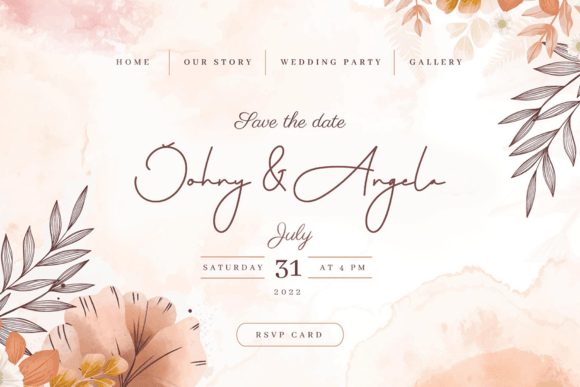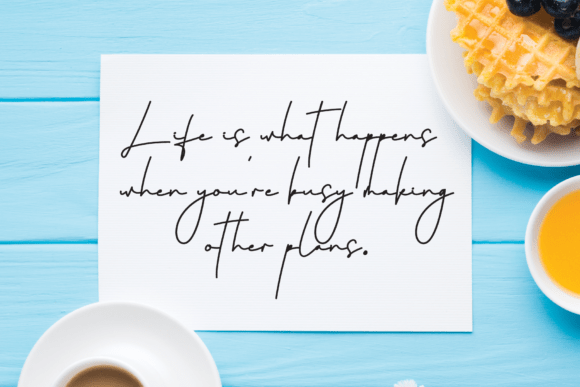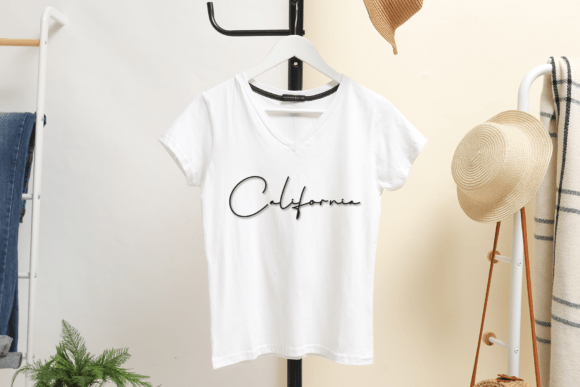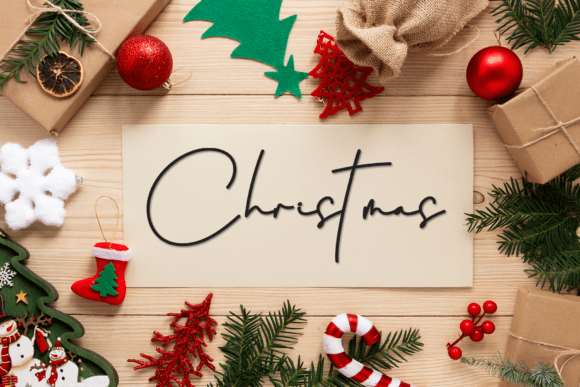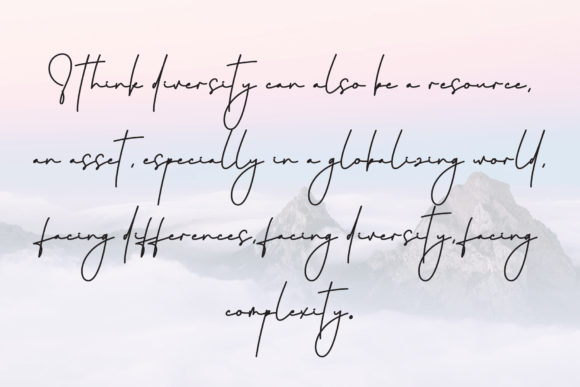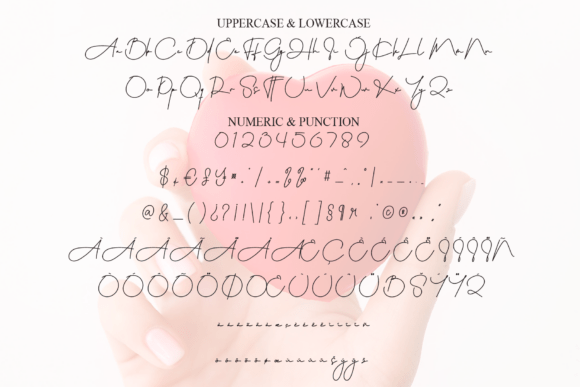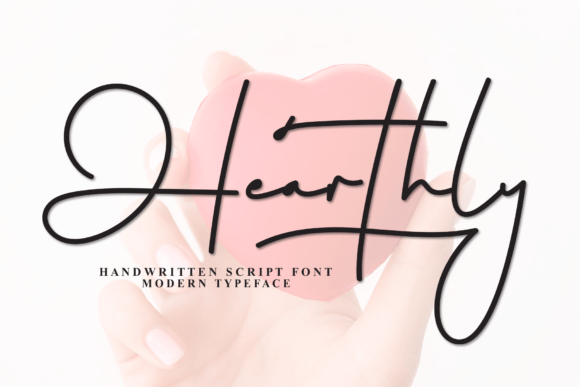
Hearthly Font: Elevate Your Designs with Elegance and Sophistication
In the world of typography, a well-crafted font can make all the difference in elevating your designs from ordinary to extraordinary. If you’re a designer or crafter looking for a stylish script font that exudes elegance and contemporary charm, look no further than Hearthly. This beautiful font is designed to capture the essence of hand-drawn calligraphy with a modern twist, making it perfect for a wide range of design applications.
The Beauty of Hearthly Font
Hearthly Font is a stunning script font that features graceful strokes, fluid curves, and carefully crafted letterforms. Its natural flow and polished details make it a versatile and visually appealing choice for any design project. Whether you’re creating a logo, invitation, packaging, or social media graphic, Hearthly adds a refined and sophisticated touch that is sure to impress.
Key Features of Hearthly Font
- Elegant and Contemporary Design: Hearthly’s modern script design makes it perfect for designers and crafters looking for a stylish and sophisticated font.
- Graceful Strokes and Fluid Curves: The font’s smooth and flowing lines give it a natural, hand-drawn feel that is both elegant and refined.
- Carefully Crafted Letterforms: Each letterform has been meticulously designed to ensure that the font is both beautiful and legible.
- Versatile and Visually Appealing: Hearthly’s versatility makes it suitable for a wide range of design applications, from logos and invitations to packaging and social media graphics.
Design Applications for Hearthly Font
Hearthly Font is an incredibly versatile font that can be used in a variety of design applications. Here are some ideas to get you started:
- Logos: Create a professional and elegant logo for your business or brand with Hearthly.
- Invitations: Add a touch of sophistication to your invitations, whether it’s for a wedding, birthday party, or other special occasion.
- Packaging: Elevate your product packaging with Hearthly’s refined and elegant design.
- Social Media Graphics: Create stunning social media graphics that showcase your brand’s personality and style.
Why Choose Hearthly Font?
With so many fonts to choose from, why should you choose Hearthly? Here are just a few reasons:
- Unique and Memorable: Hearthly’s elegant design makes it a standout font that will help your designs stand out from the crowd.
- Easy to Read: Despite its elegant design, Hearthly is still easy to read, making it perfect for body text and headlines.
- Highly Versatile: Hearthly can be used in a wide range of design applications, making it a great addition to any designer’s toolkit.
In conclusion, Hearthly Font is a stylish script font that exudes elegance and contemporary charm. Its graceful strokes, fluid curves, and carefully crafted letterforms make it a beautiful and versatile choice for any design project. Whether you’re a designer or crafter, Hearthly is sure to elevate your designs and add a refined and sophisticated touch. So why wait? Download Hearthly Font today and start creating stunning designs that showcase your style and creativity!